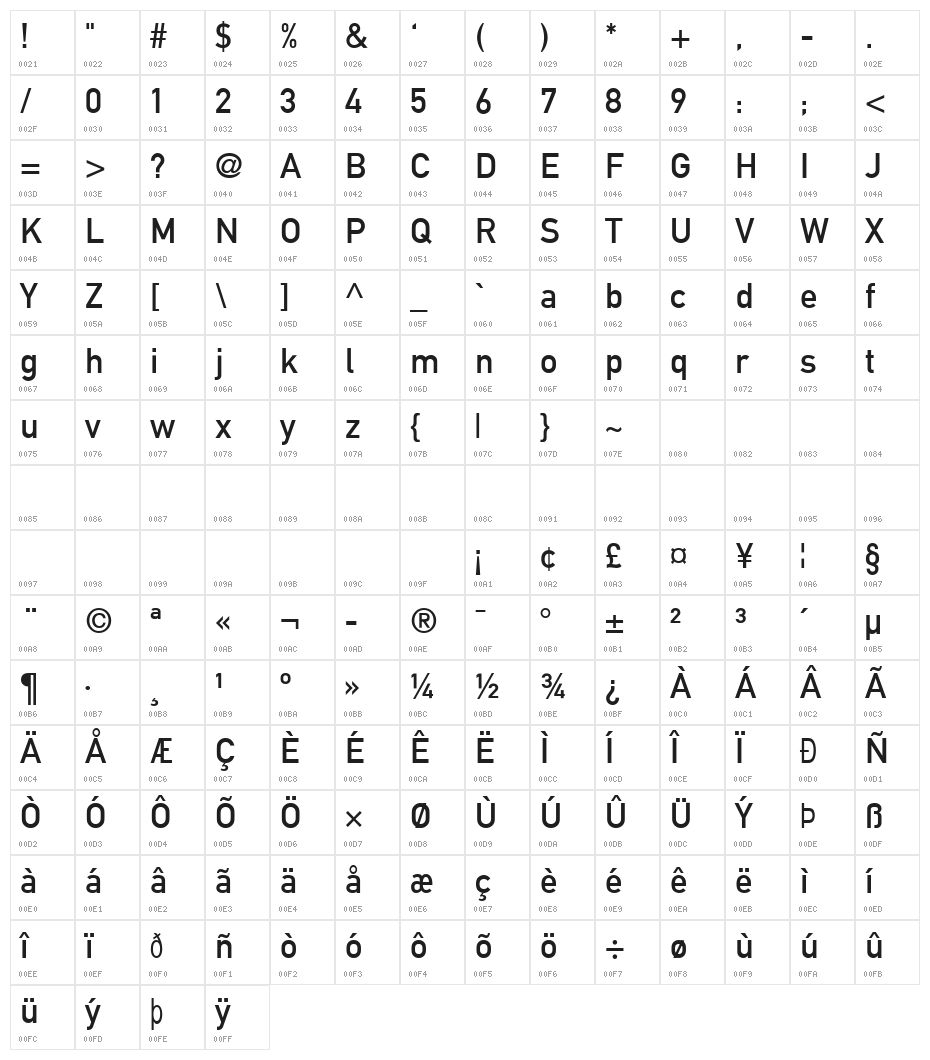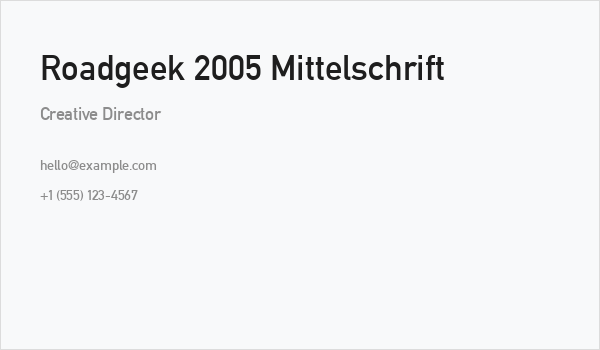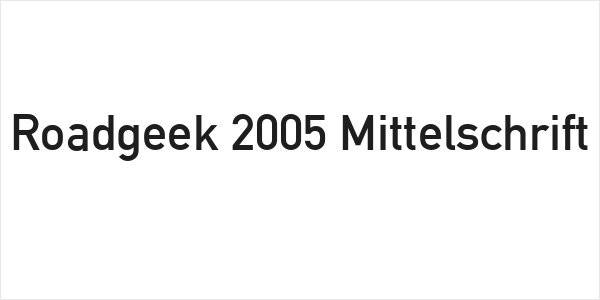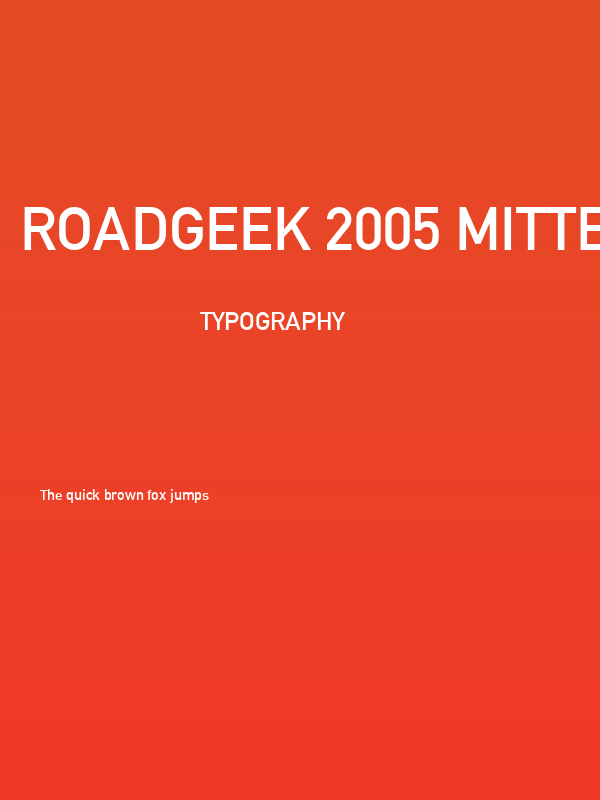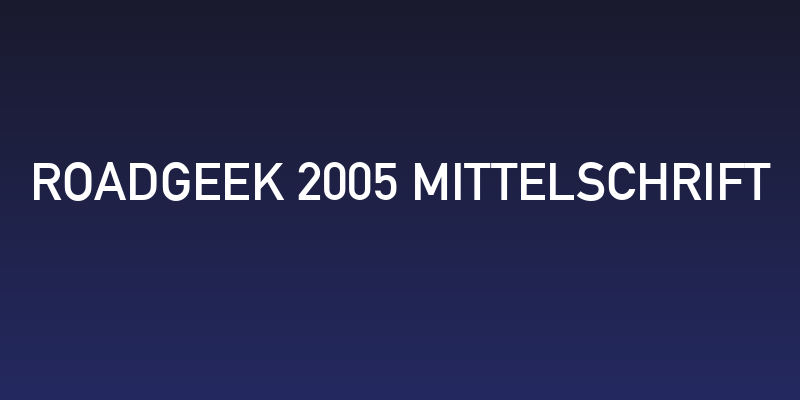
Roadgeek 2005 Mittelschrift Font
Roadgeek 2005 Mittelschrift Description
This font features a clean and straightforward sans-serif design, characterized by its geometric shapes and uniform stroke widths. The letters are well-proportioned, offering excellent readability and clarity. The uppercase characters are bold and assertive, while the lowercase letters maintain a consistent height and width, enhancing legibility. The numerals are clear and distinct, making them suitable for various applications. Special characters are designed with the same attention to detail, ensuring a cohesive look across all glyphs. This font is ideal for signage and wayfinding due to its clarity and simplicity.
| Use Case | Signage, Wayfinding, Informational displays |
| Proposed Projects | Ideal for road signage, wayfinding systems, and informational displays. |